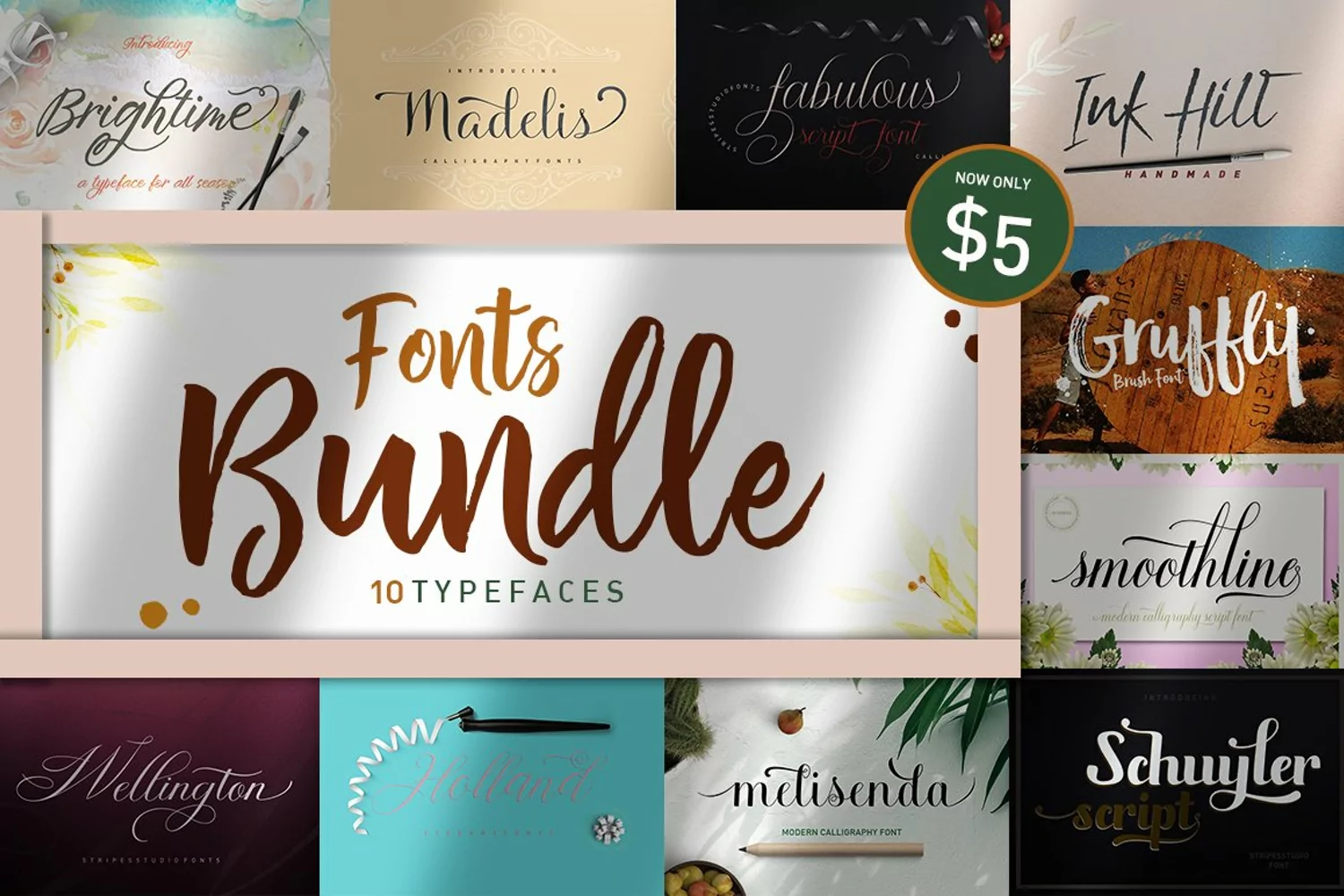
Fonts Bundle
Gruffly
Ink Hill
Fabulous Script
Wellington Script
Melisenda Script
Madelis Script
Brightime Script
Schuyler Script
Holland Script
Smootline Script
10 TYPEFACES  ( FONT BUNDLE )
This is your chance to get all my fonts at a super low price for $5!  In 10 typefaces . This bundle includes a varied range of font styles such as, calligraphy, signature, brush lettering, hand lettering and more. with hundreds of glyphs, including alternates, ligatures, swashes, and international language support.
These professional resources are also sophisticated because every font has his own magic design.
Numeral
Accent (multilingual characters)
Ligature
Stylistic Sets
Swash